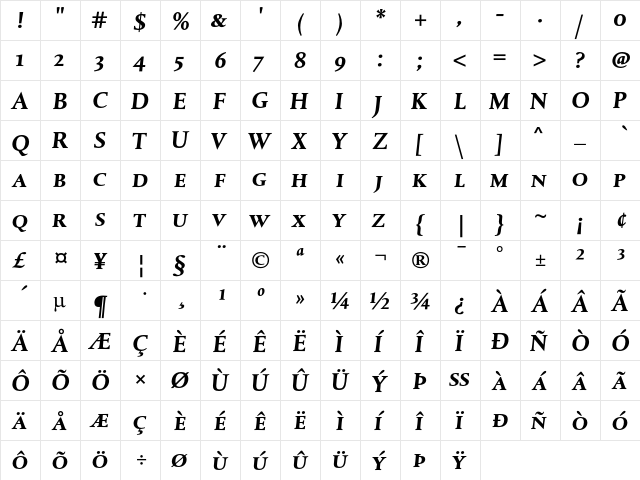
DTLAlbertinaTCaps Bold Italic Font Preview
DTLAlbertinaTCaps Bold Italic
Design Context for DTLAlbertinaTCaps Typeface
DTLAlbertinaTCaps takes a measured approach to typography — its balanced proportions and neutral character make it a reliable workhorse for both digital and print work. The slanted form adds forward momentum and visual energy. The heavy weight commands attention and anchors typographic hierarchies.
Pro Tip: Use DTLAlbertinaTCaps for emphasis, pull quotes, and subheadings where its slanted energy can add rhythm to the layout.